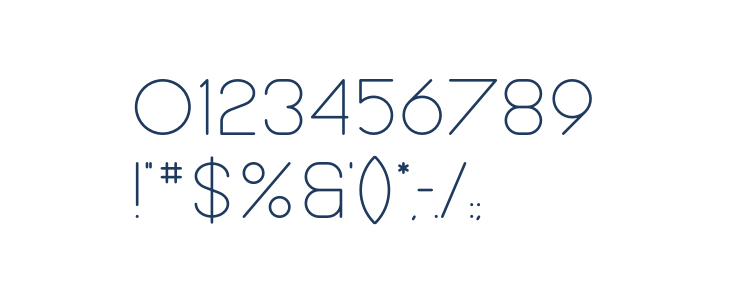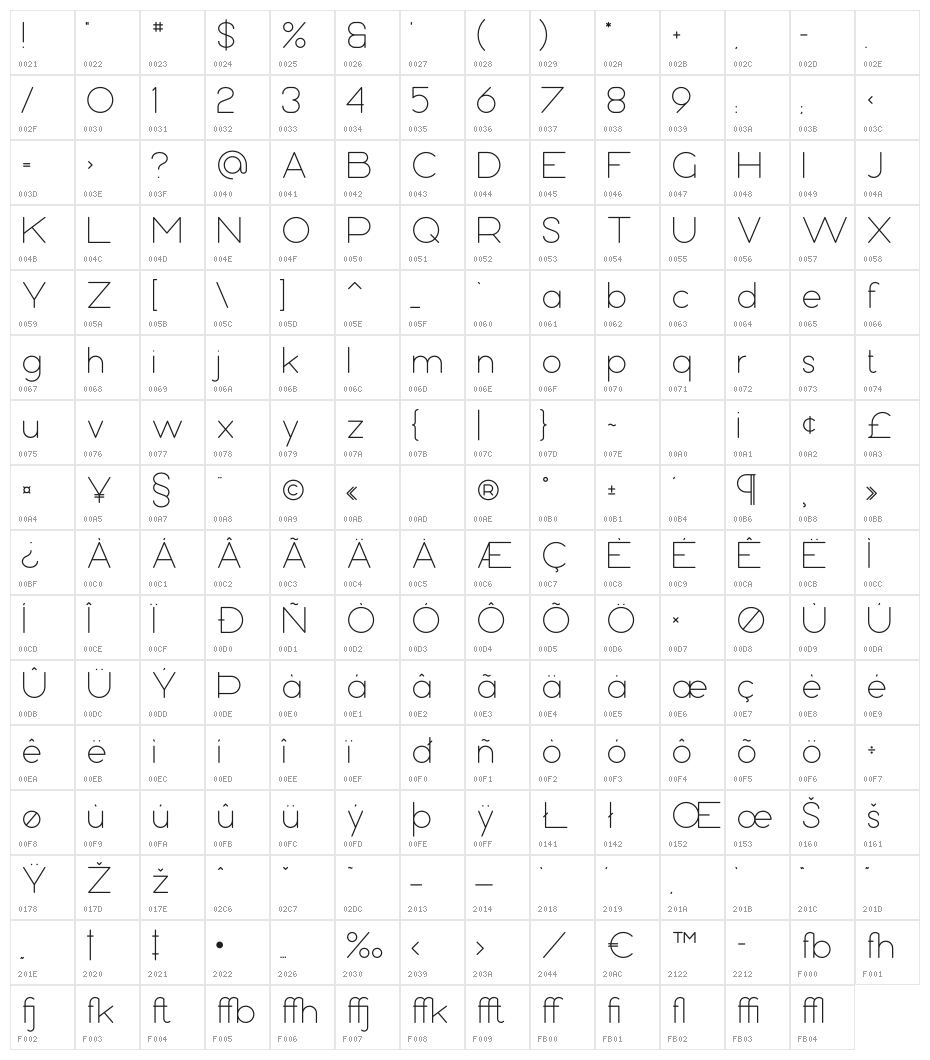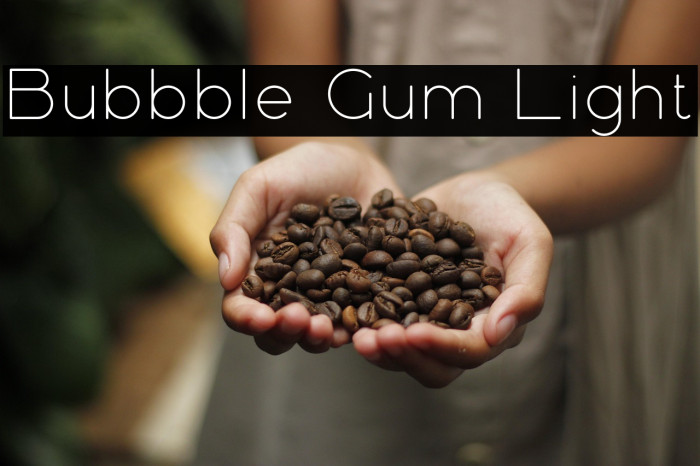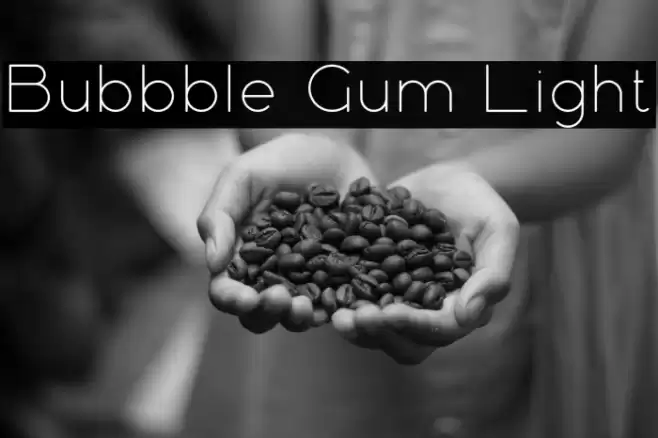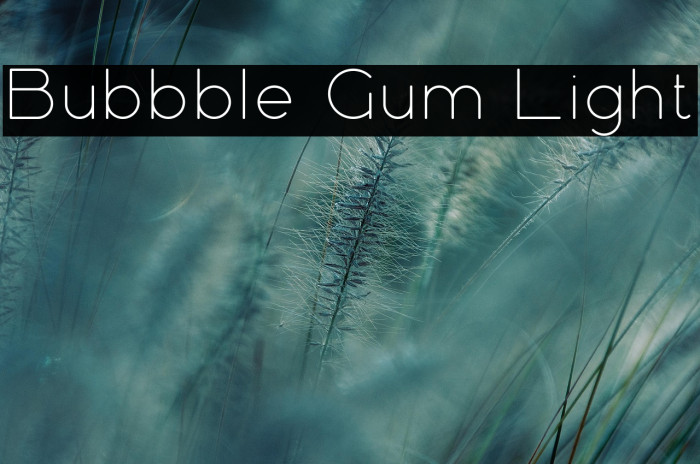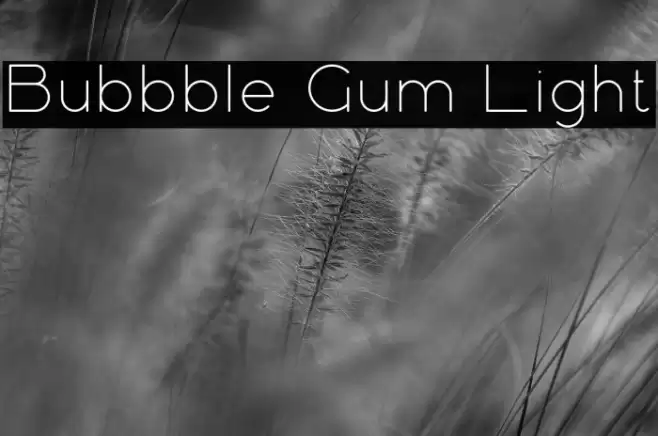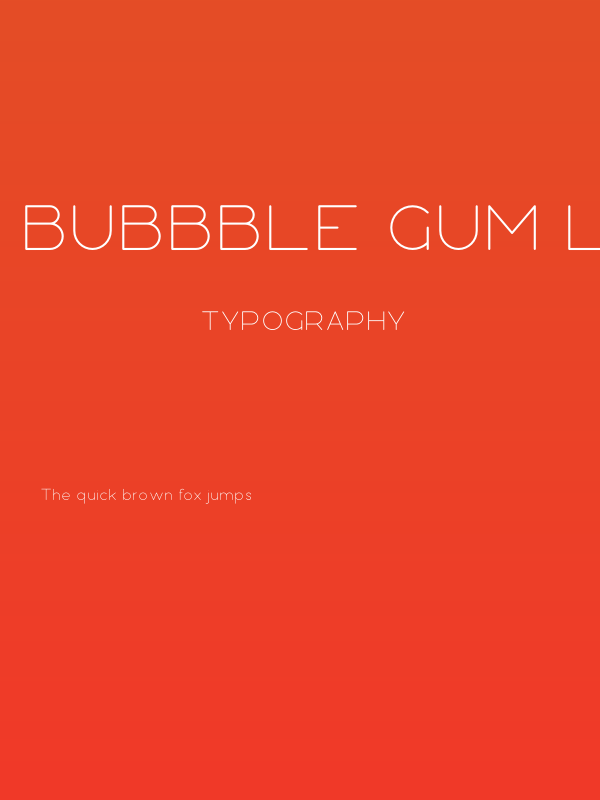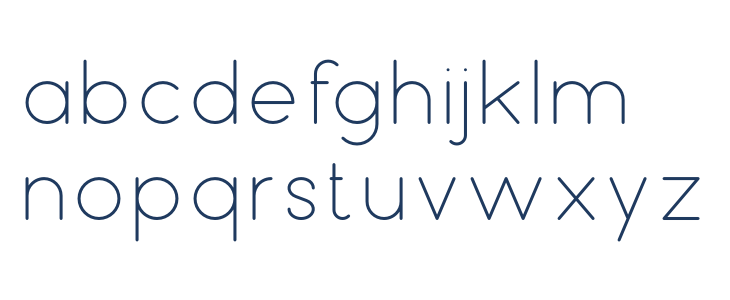
Bubbble Gum Light Font
Bubbble Gum Light Description
This font features a clean and minimalist design with a geometric structure. The characters are evenly spaced, creating a harmonious and balanced appearance. The lines are thin and consistent, contributing to a light and airy feel. The uppercase and lowercase letters maintain a uniform height, enhancing readability. The numerals and special characters are designed with the same geometric precision, ensuring a cohesive look across all text elements. This font's simplicity and elegance make it versatile for various design applications.